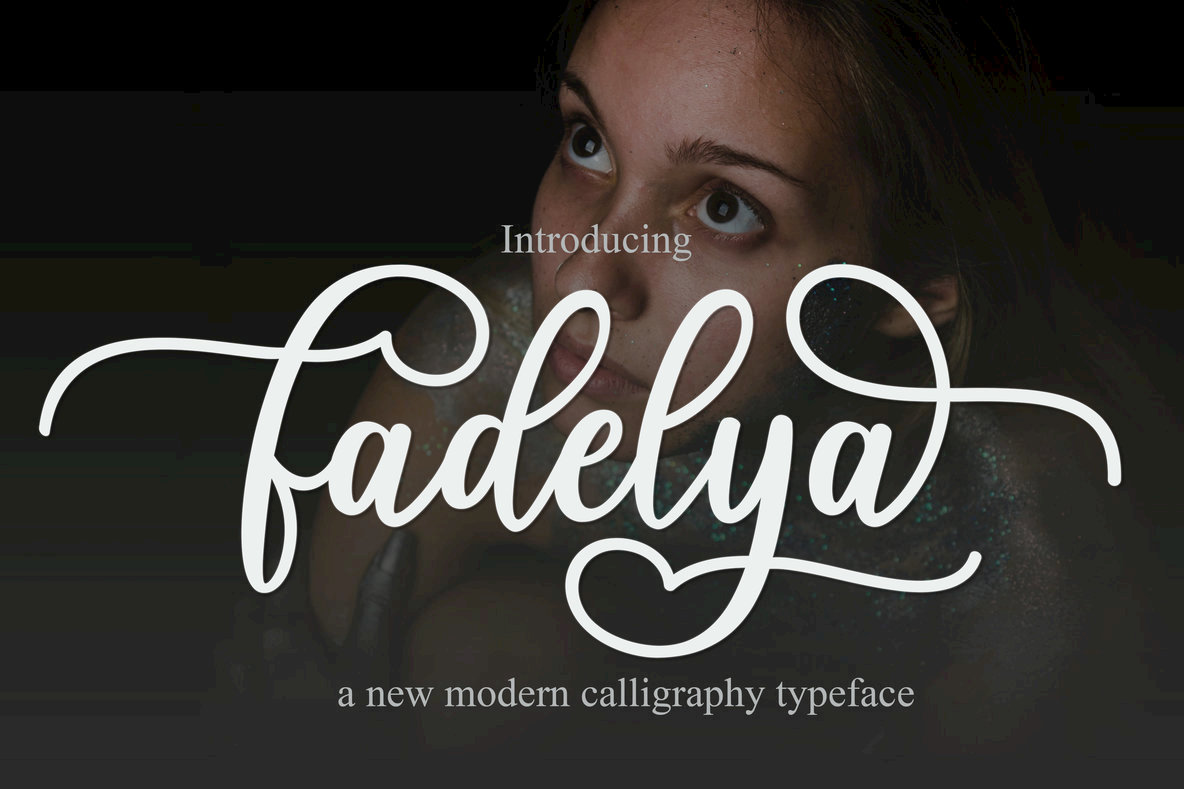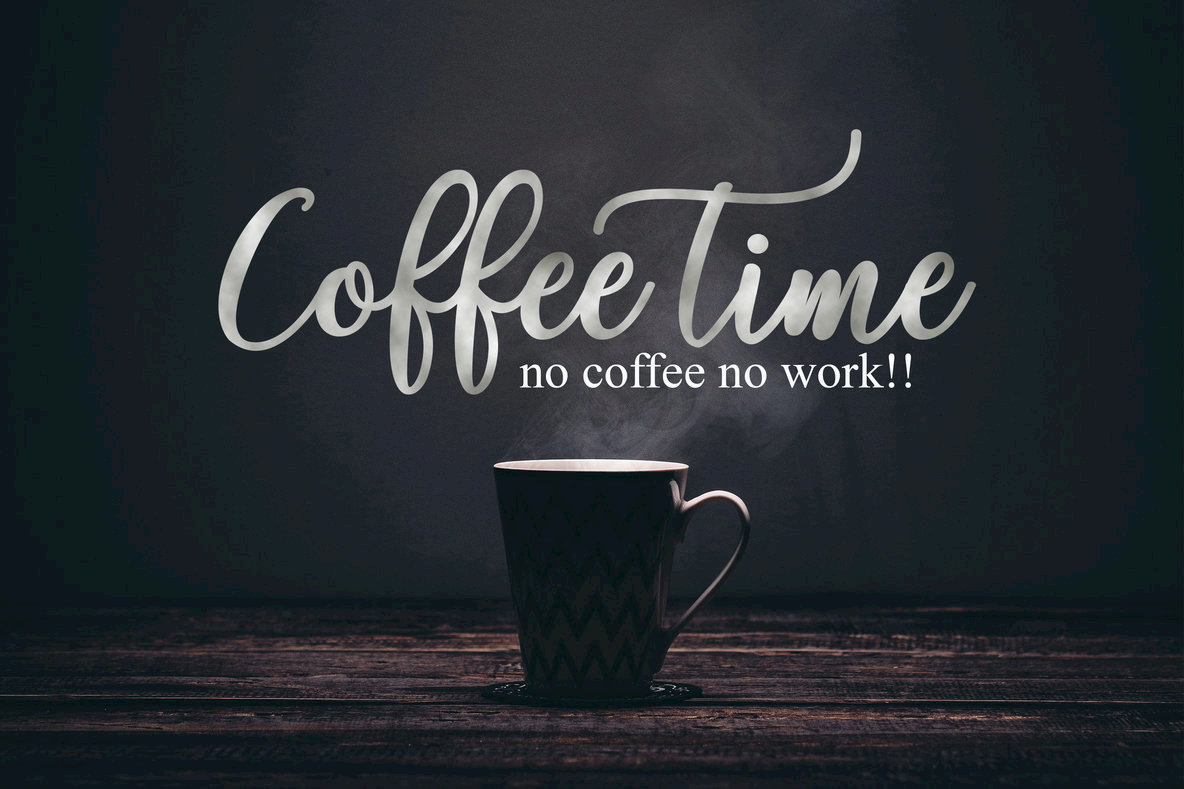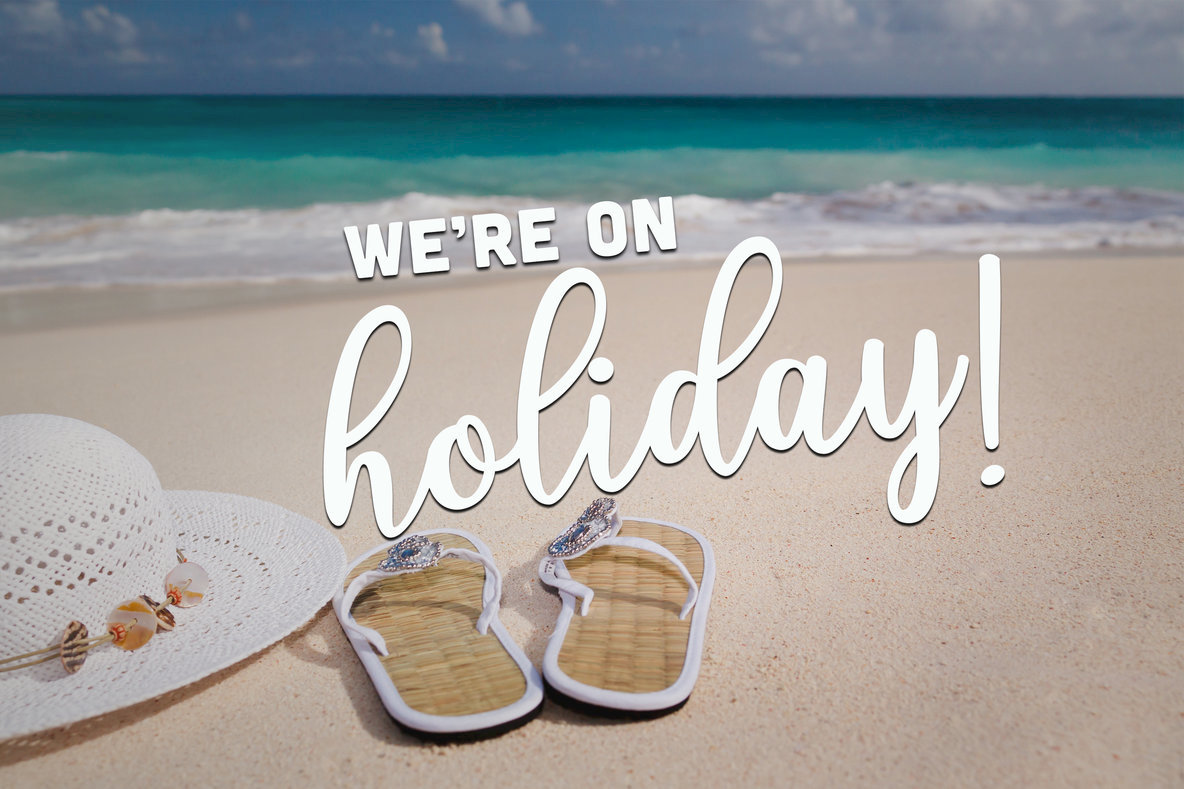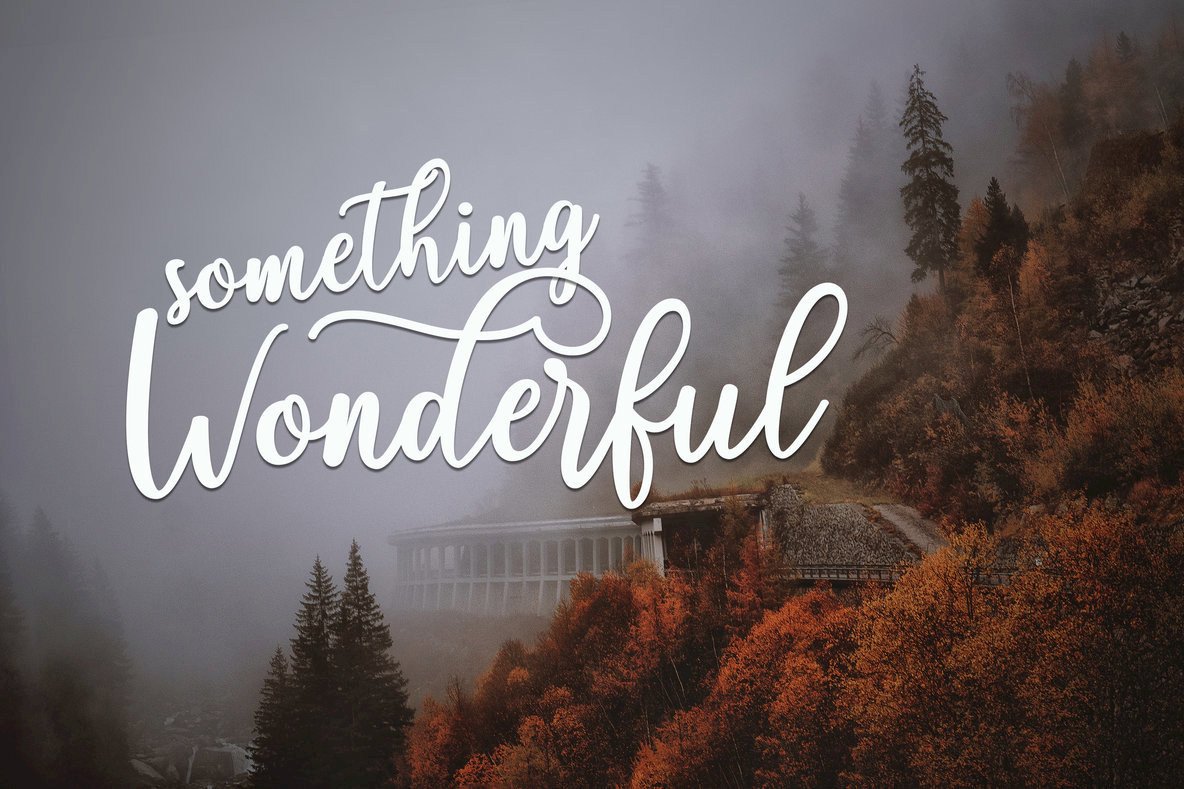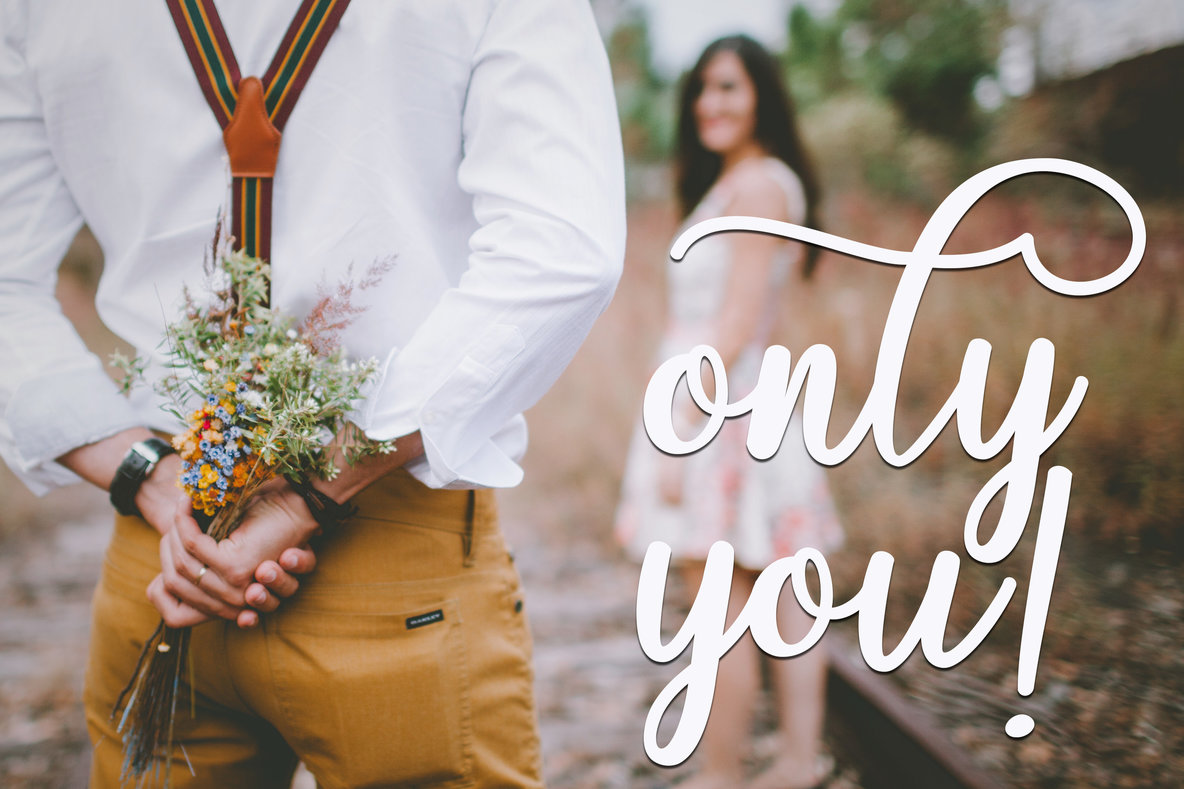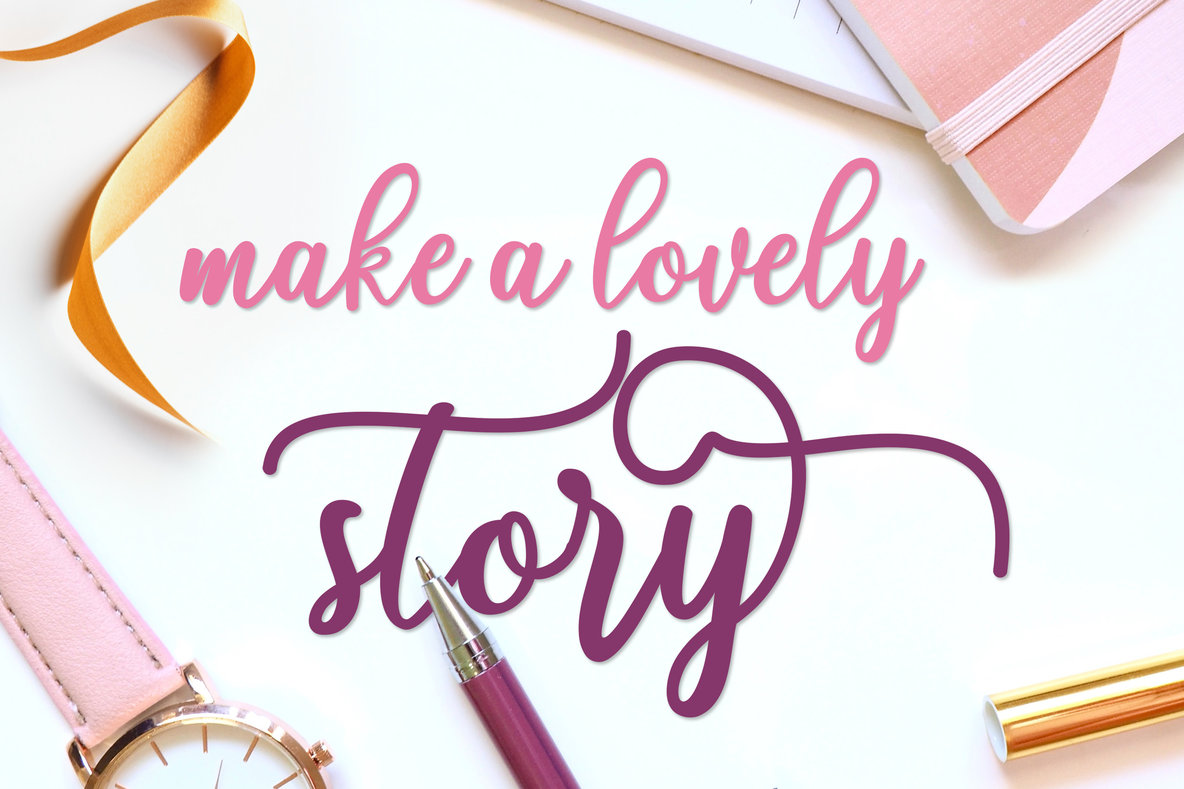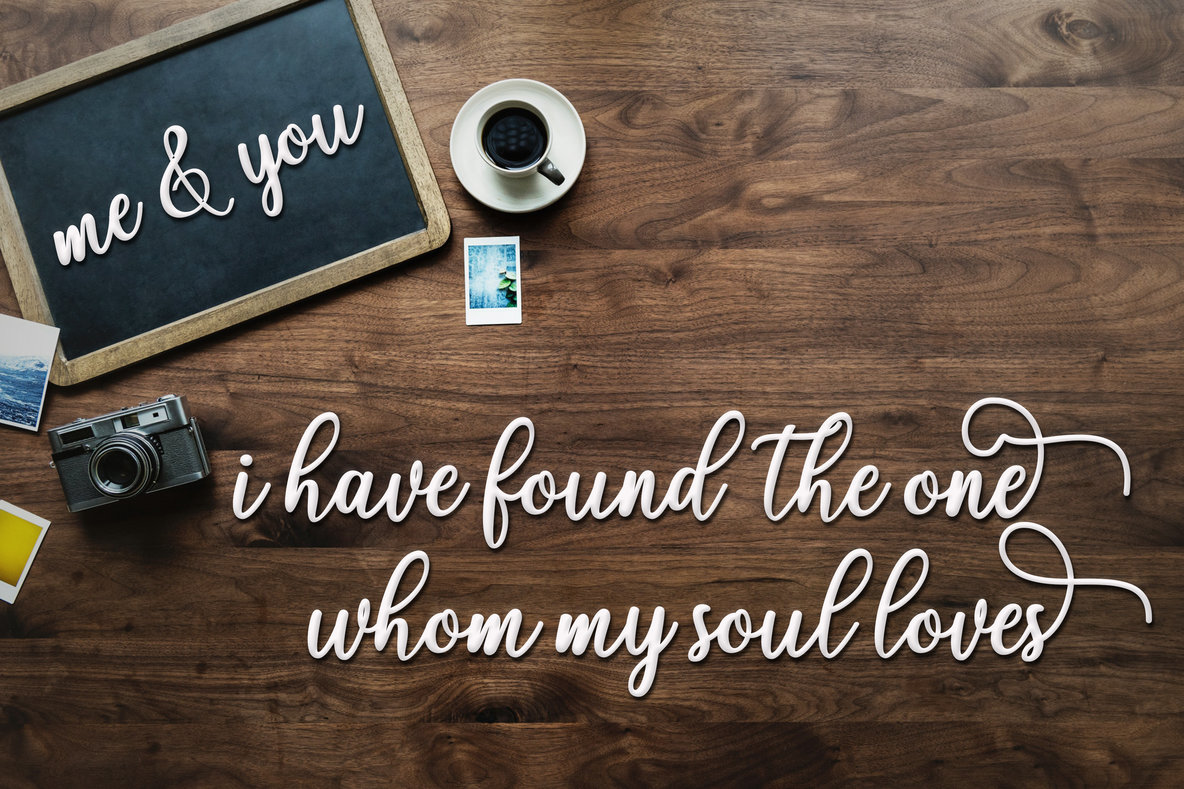
Fadelya Script Font
Fadelya Script
A masterpiece of modern calligraphy, Fadelya Script brings an exquisite handwritten touch to any project. Its versatility makes it perfect for a range of applications, including branding, wedding invitations, magazines, mugs, business cards, quotes, and posters. To fully experience Fadelya Script, use programs that support OpenType features such as Adobe Photoshop, Illustrator, InDesign, and Corel Draw. If your software lacks OpenType support, alternate glyphs can still be accessed through Font Book on Mac or Character Map on Windows.Fadelya Script: Elegant Modern Calligraphy Font